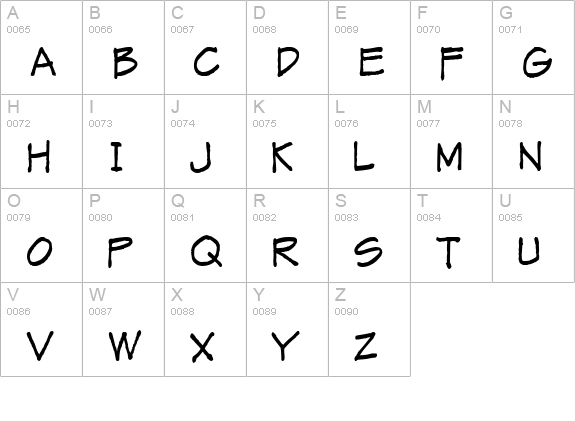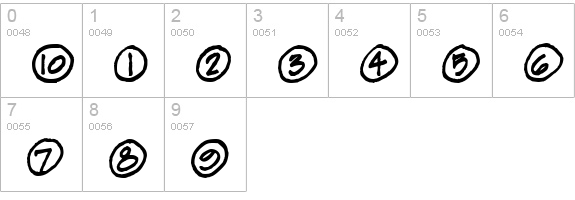
Frank the ArchitectAlt Font Details
Introducing Frank the ArchitectAlt font – a stylish and modern typeface perfect for architectural designs, branding projects, and more. This unique font features sleek lines and a contemporary feel that will elevate any creative project. Frank the ArchitectAlt is designed with precision and attention to detail, making it a standout choice for designers looking to make a statement. The best part? Frank the ArchitectAlt font is available for free download at FontsMarket.com. This means you can easily access this high-quality font without breaking the bank. Whether you're working on a professional project or a personal endeavor, Frank the ArchitectAlt font is a versatile and eye-catching option that will enhance your designs. Don't miss out on this fantastic opportunity to add a touch of elegance to your work – download Frank the ArchitectAlt font today!